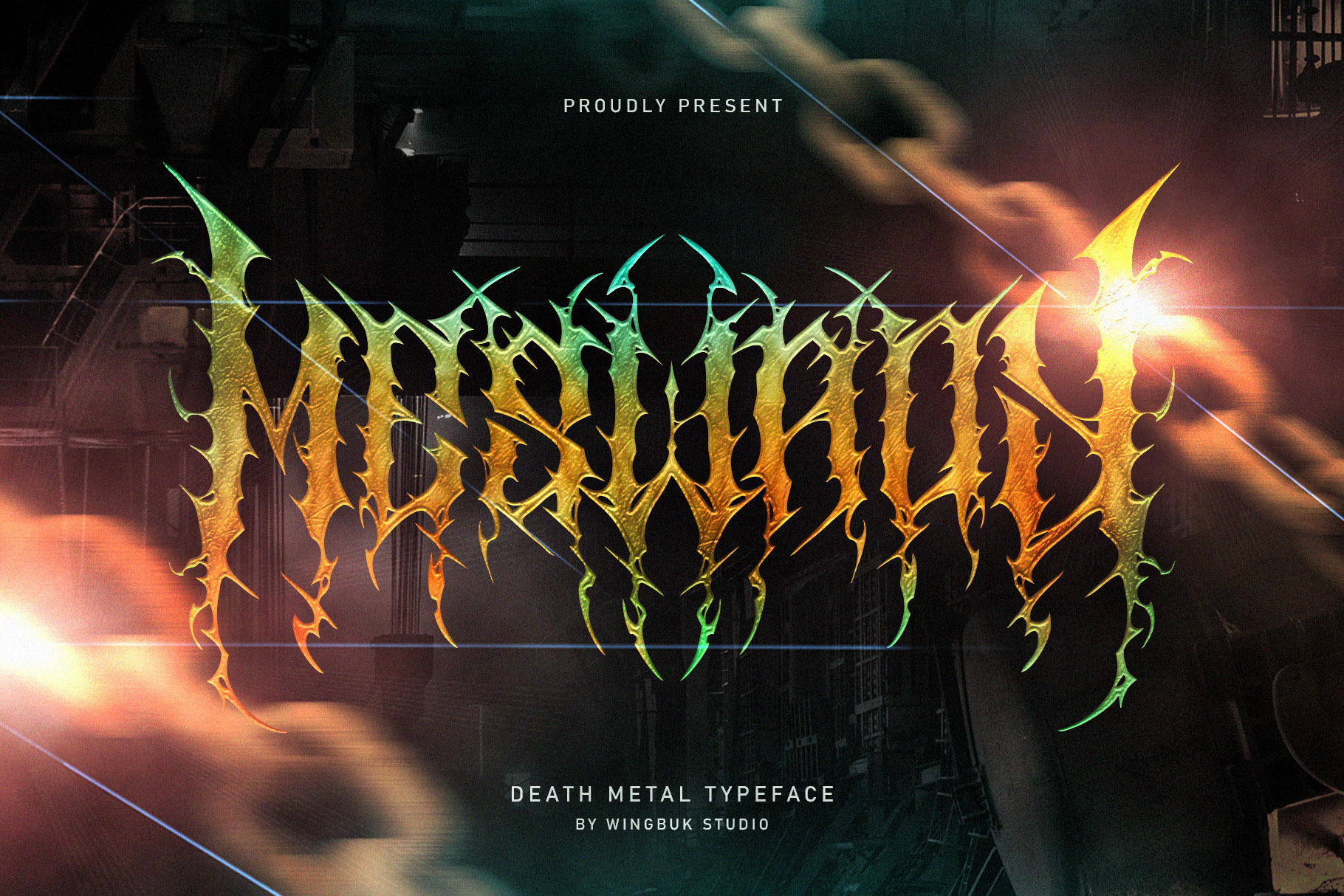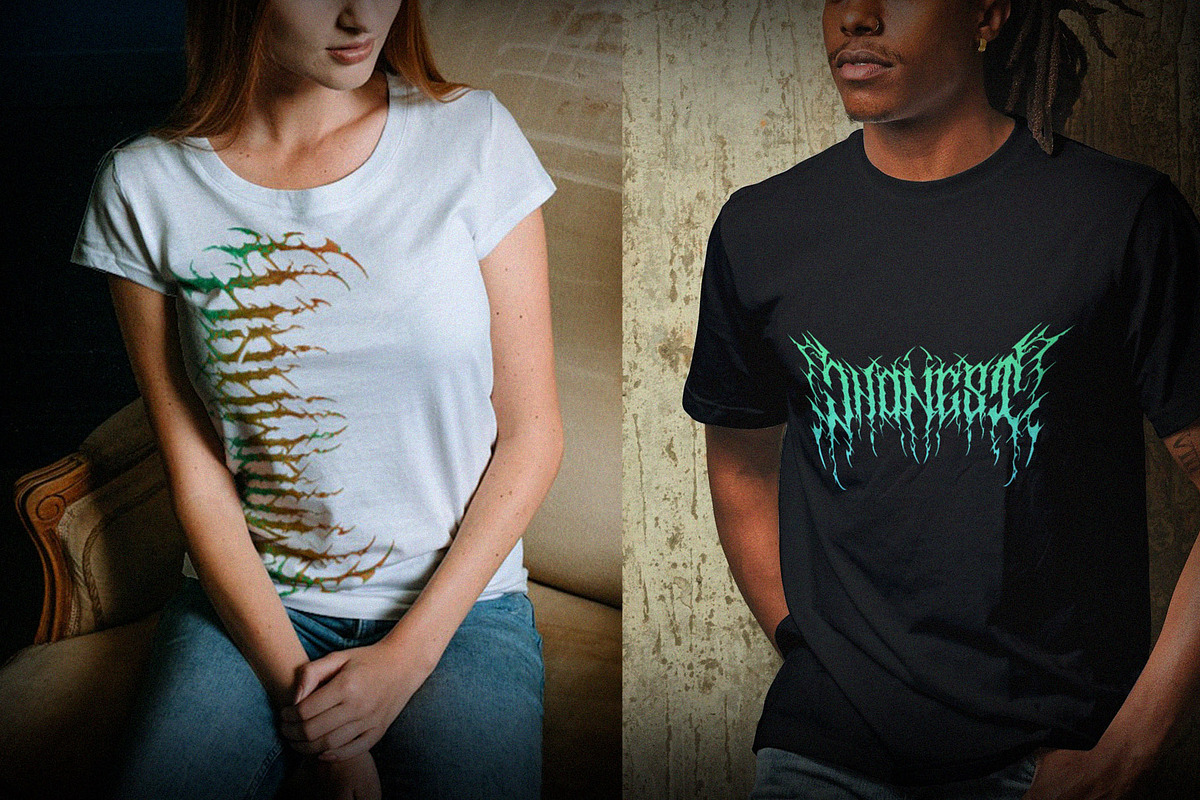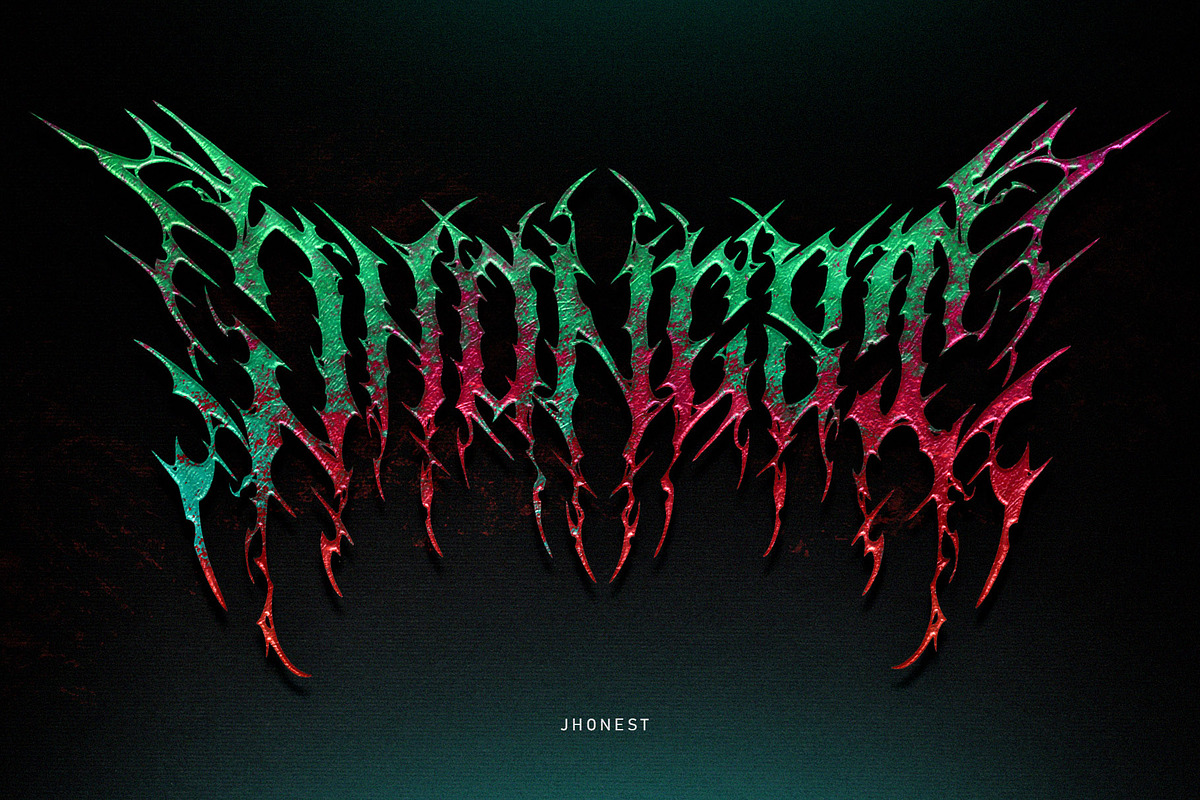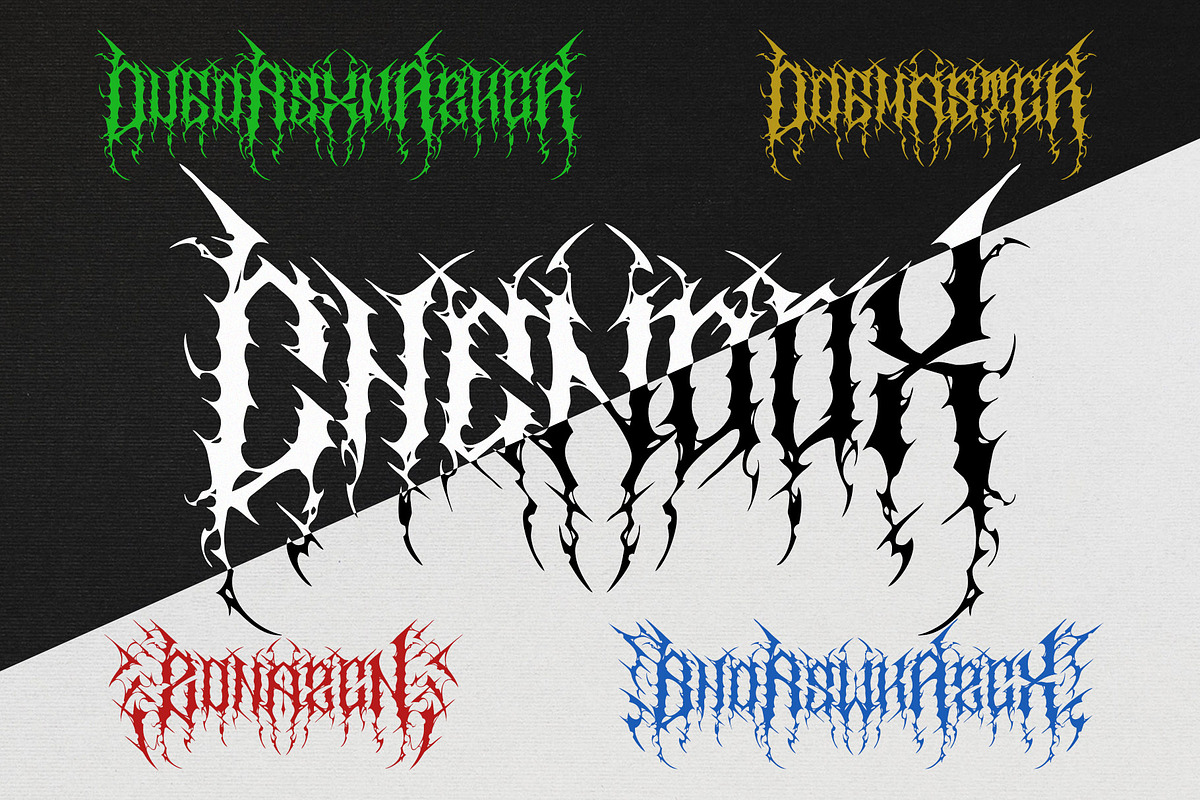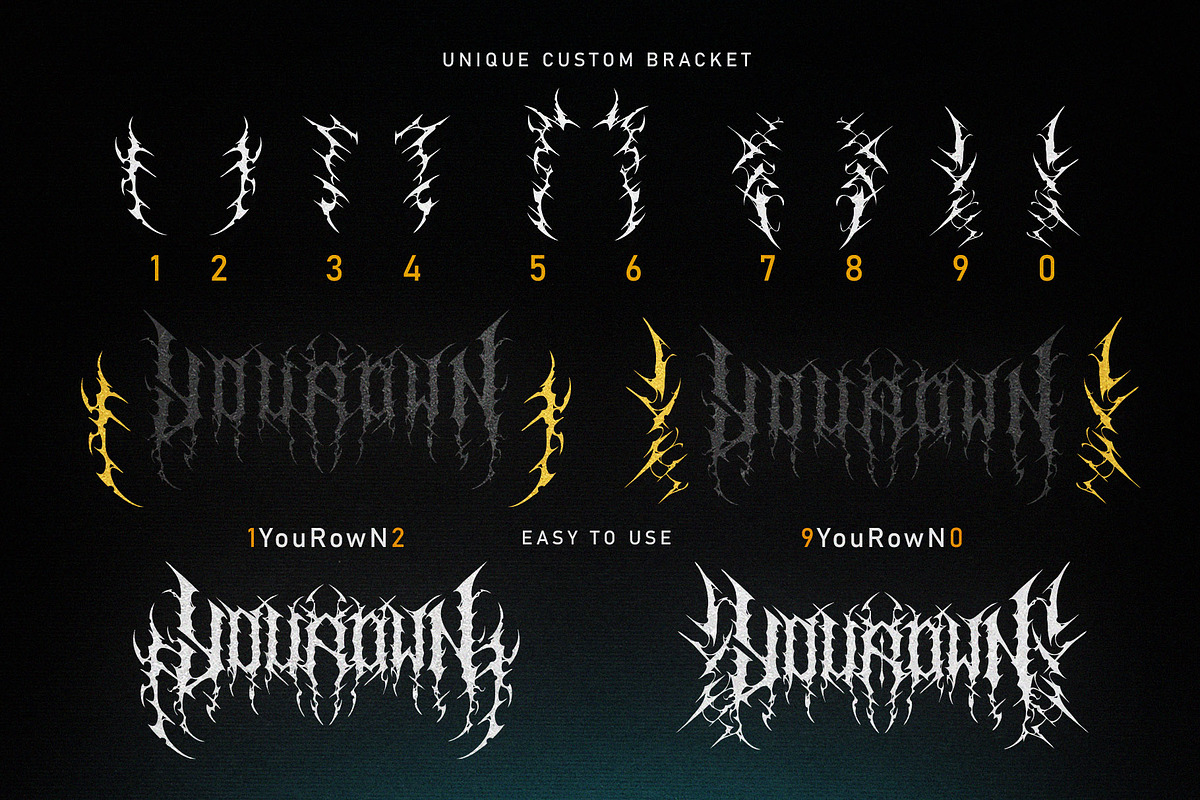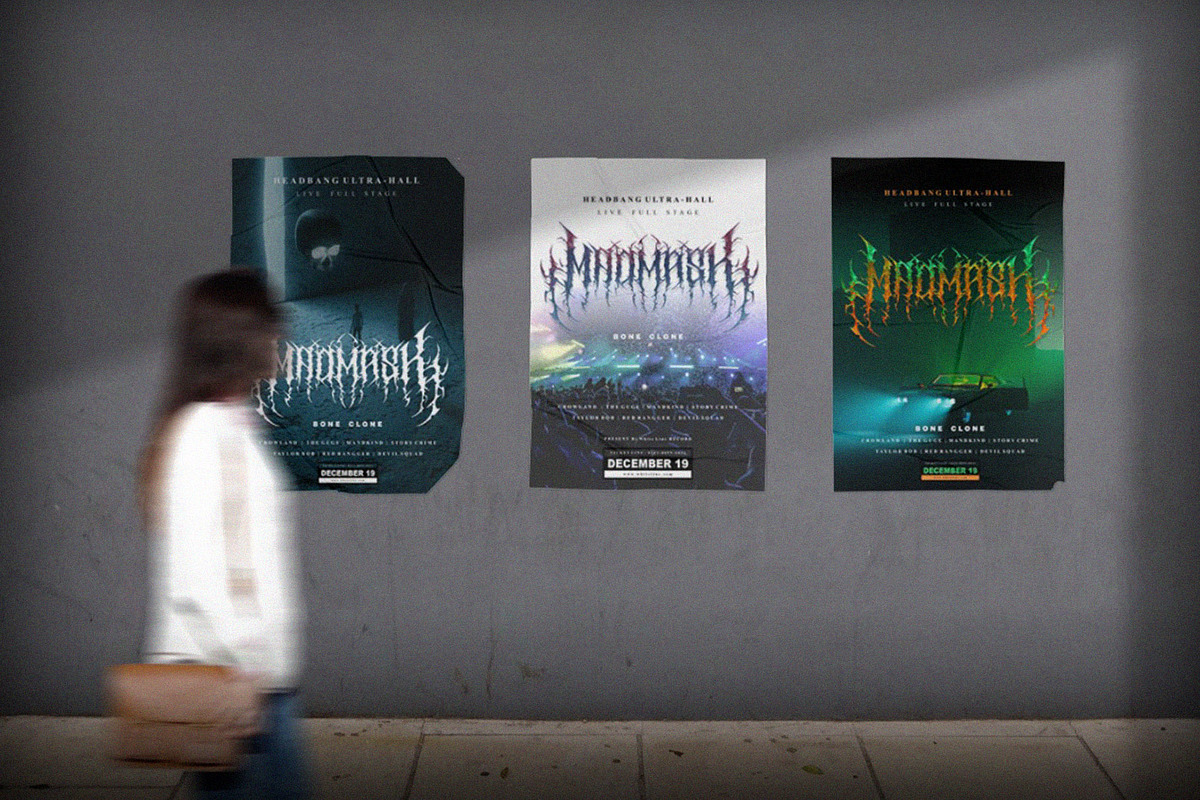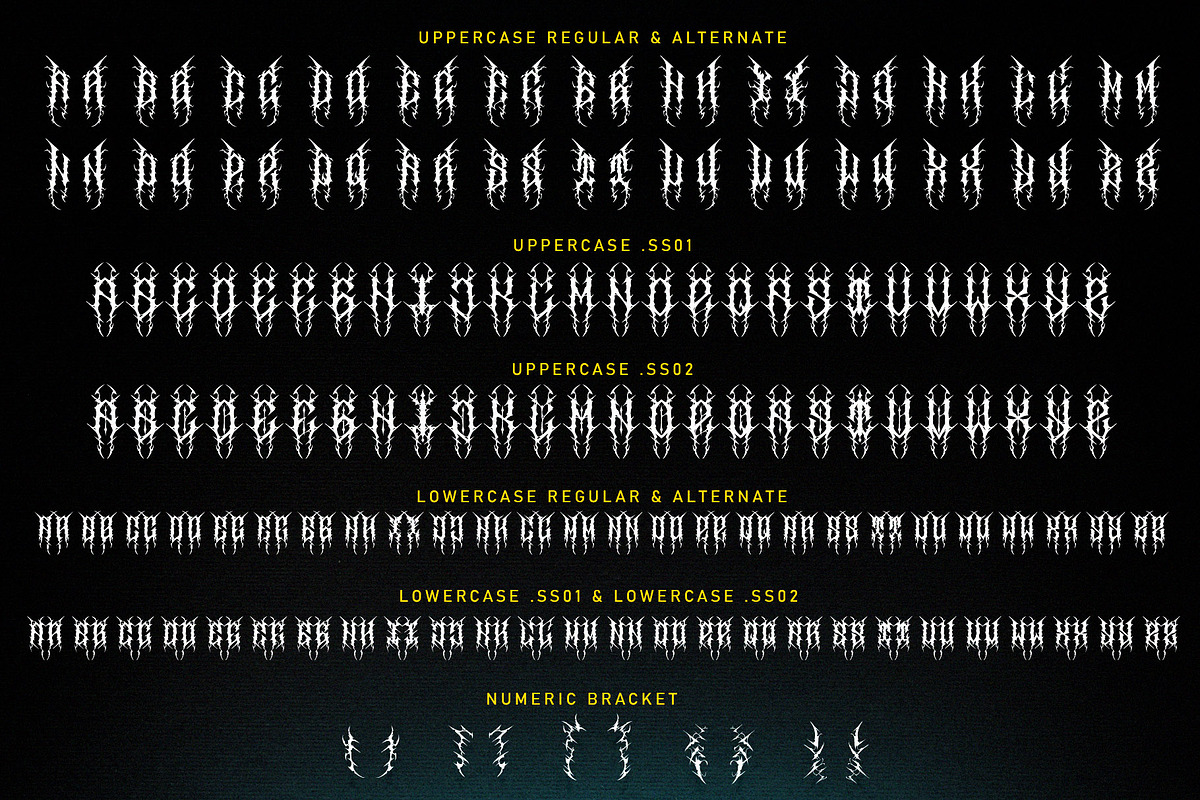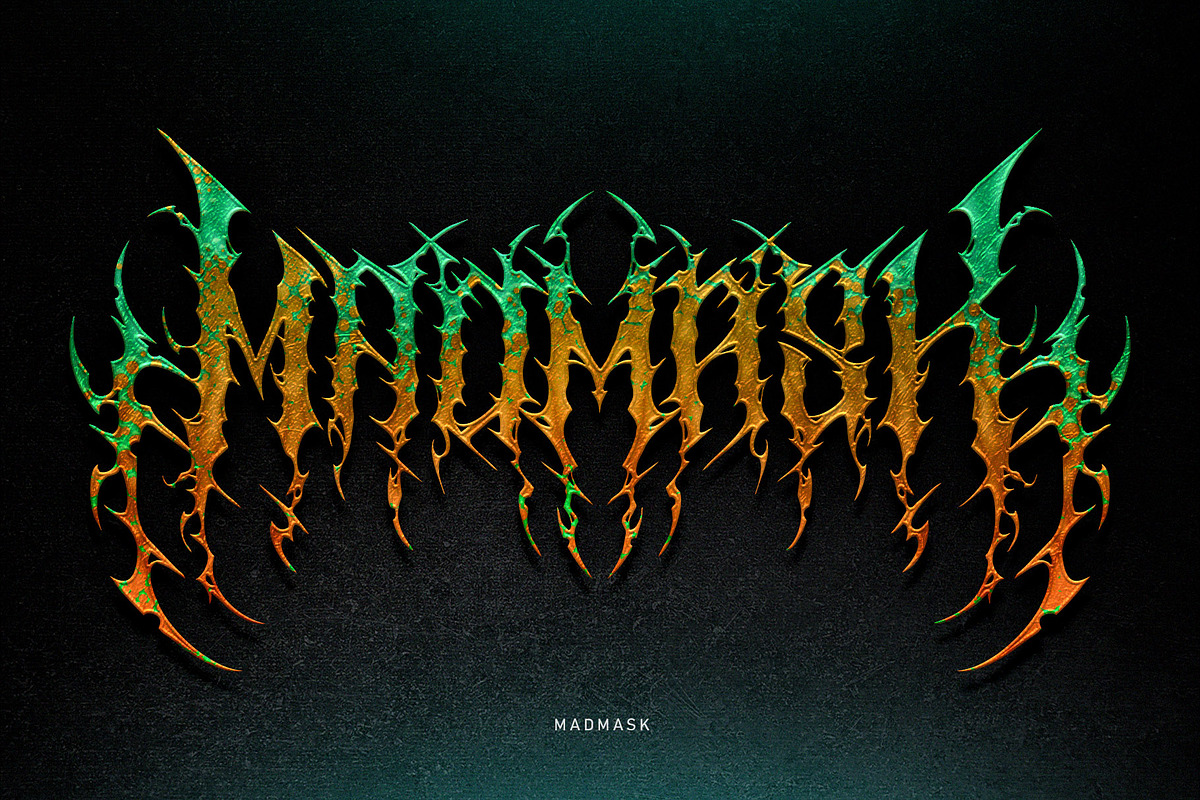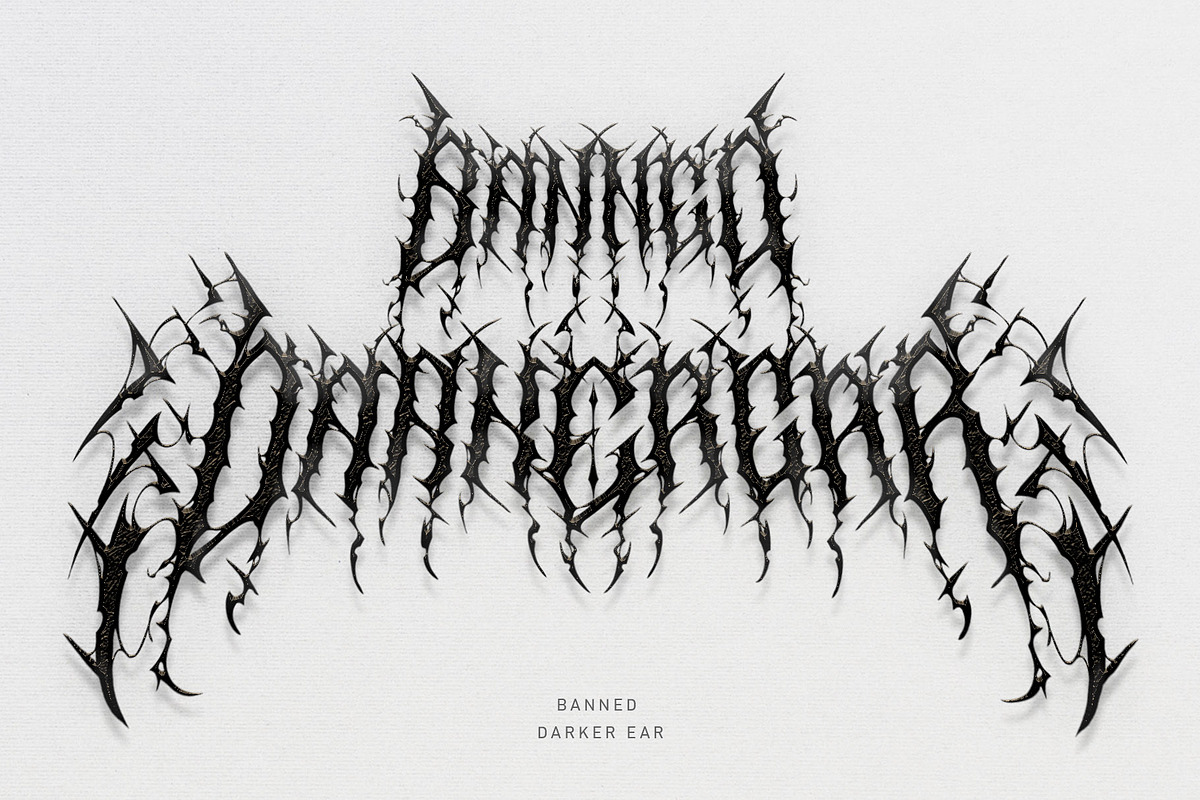
Meswady | Metal Font
Meswady is a rare item from us ! Giving you a stunning impression of the ferocity of a metal font that's very easy to implement. Perfect for metal band logo, metal apparel, merchandise, concert posters, even movie posters.